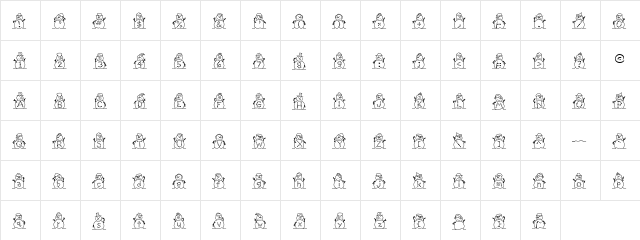
LD Frosty Friendz Regular
Design Context for LD Frosty Friendz Typeface
LD Frosty Friendz is a composed and adaptable typeface that performs quietly and consistently across a wide range of design contexts.